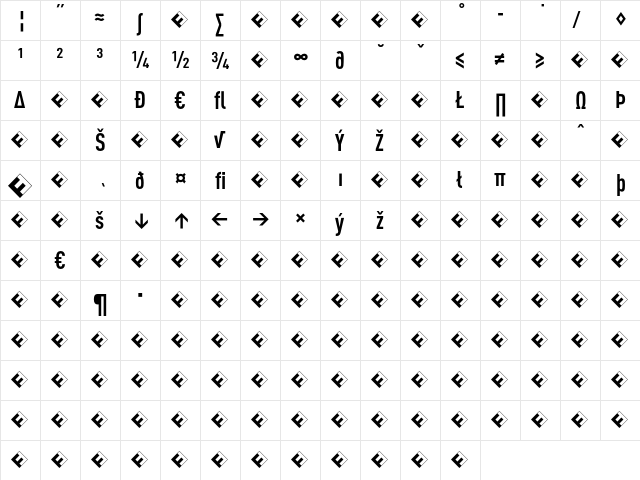
DINCond-BoldExpert Regular Font Preview
Design Context for DINCond-BoldExpert Typeface
DINCond-BoldExpert offers clean, dependable letterforms without strong stylistic allegiance, making it a practical choice for designers who need flexibility. The heavy weight commands attention and anchors typographic hierarchies. Its narrow stance lets it pack a punch even in space-constrained designs.